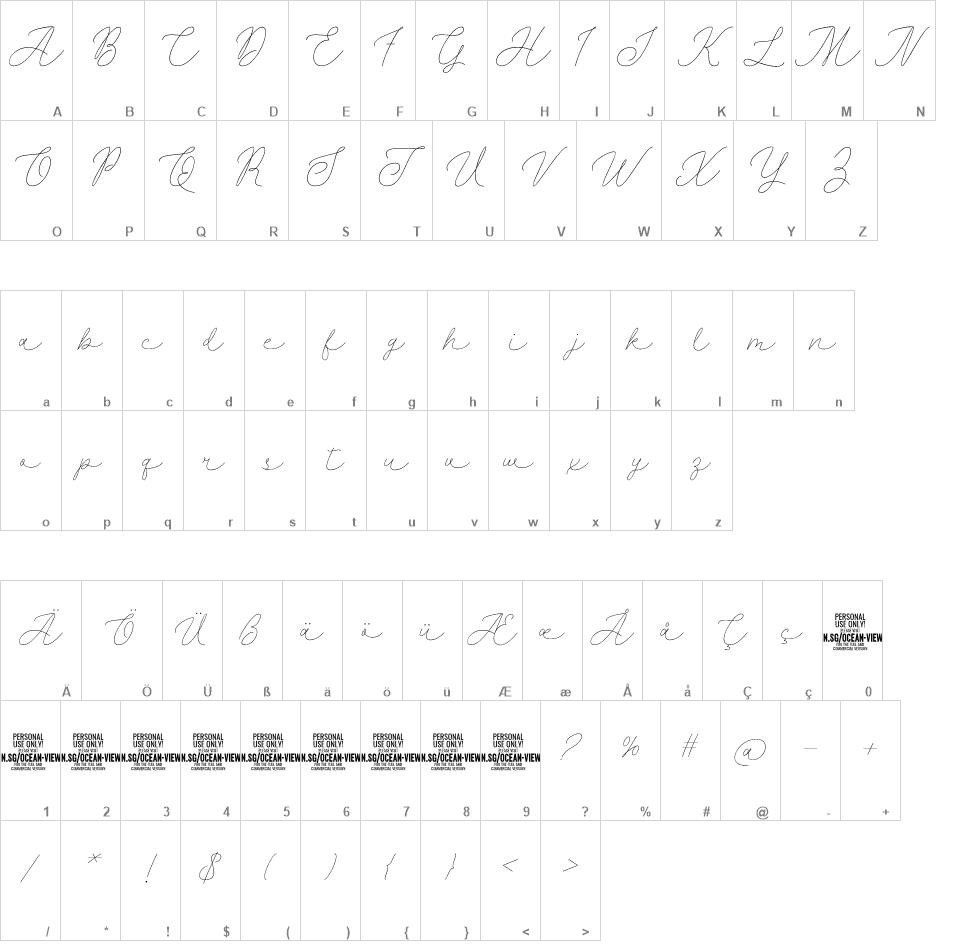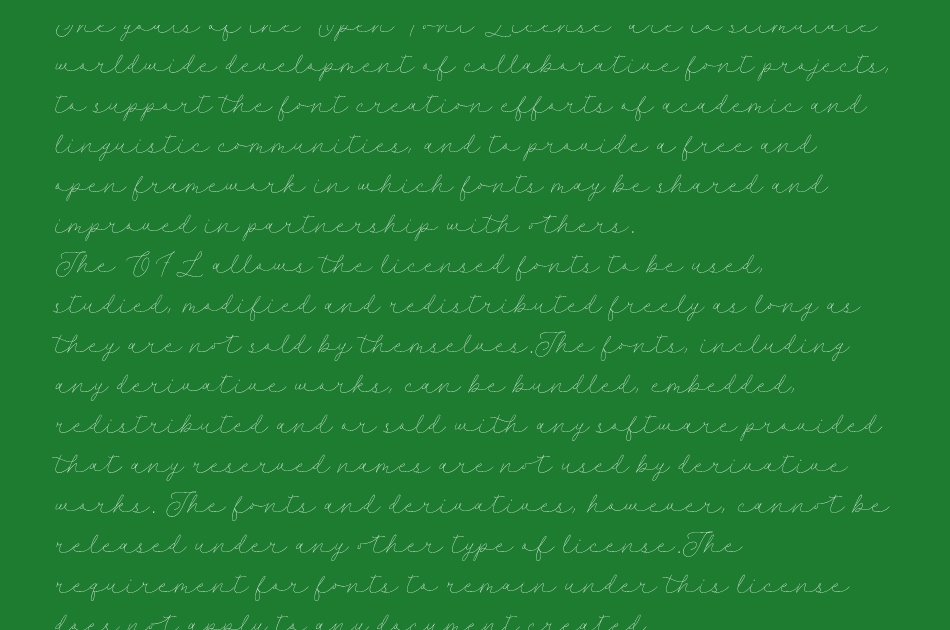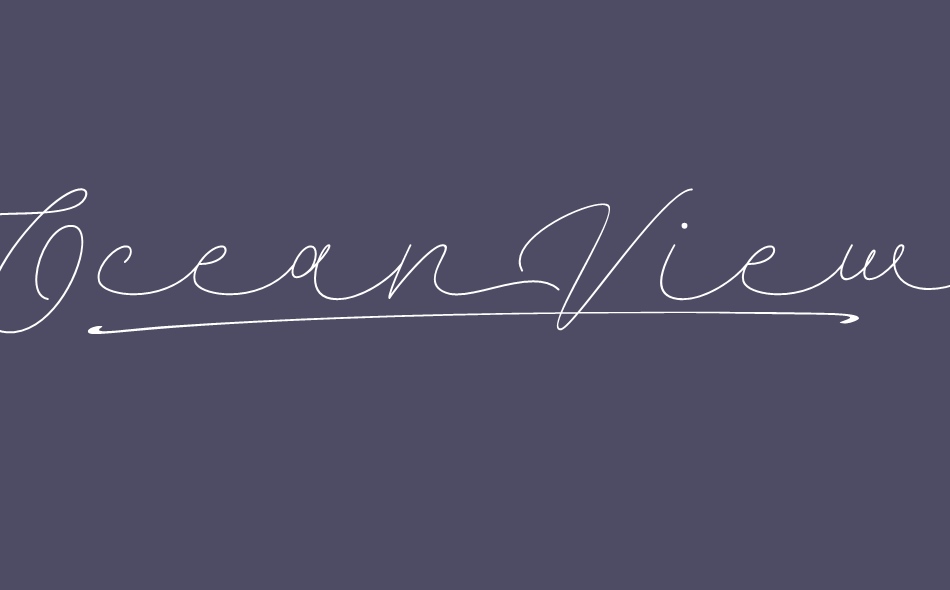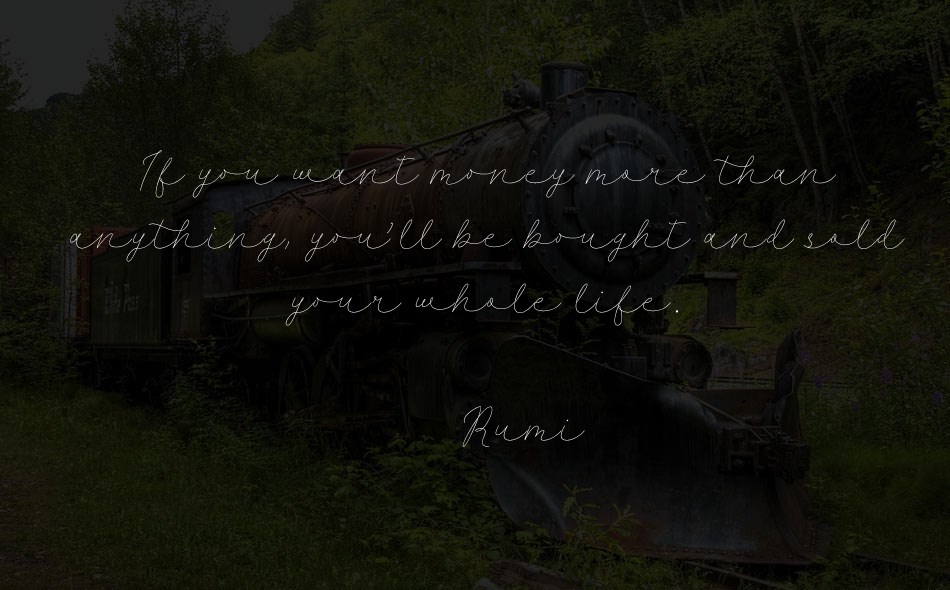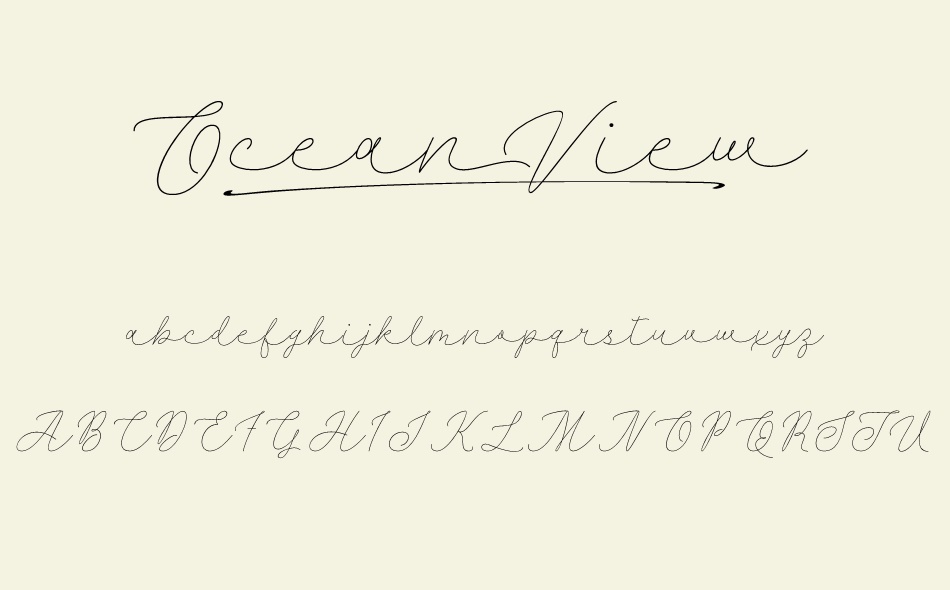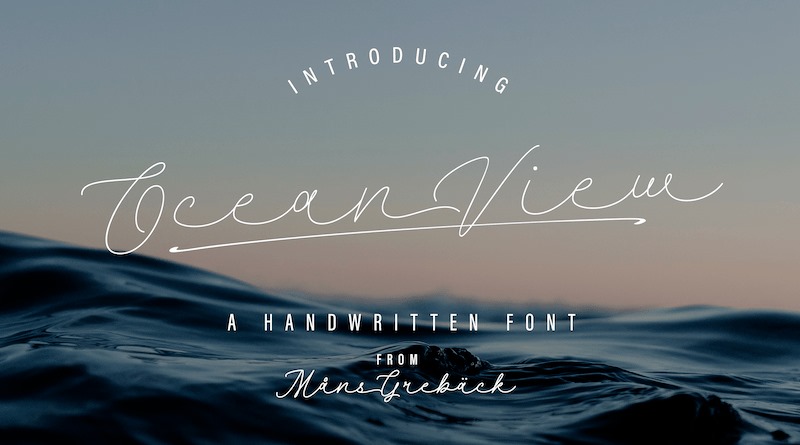
Ocean View font
Use underscore _ to make a swash.
Example: Cle_arly
Use multiple underscores to make different swashes.
Example: Super__________star
Ocean View is a beautiful handwriting lettering.
This script typeface is cute and feminine, optimized for a modern signature logotype with a genuine craft style. Its monolined strokes and hand drawn letterforms emits optimism and lightheartedness.
Use underscore _ to make a swash. Example: Cle_arly
The Ocean View family consists of five high-quality cursive fonts: Thin, Light, Regular, Bold and Black
The font is built with advanced OpenType functionality and has a guaranteed top-notch quality, containing stylistic and contextual alternates, ligatures and more features; all to give you full control and customizability. It has extensive lingual support, covering all Latin-based languages, from Northern Europe to South Africa, from America to South-East Asia. It contains all characters and symbols you'll ever need, including all punctuation and numbers.